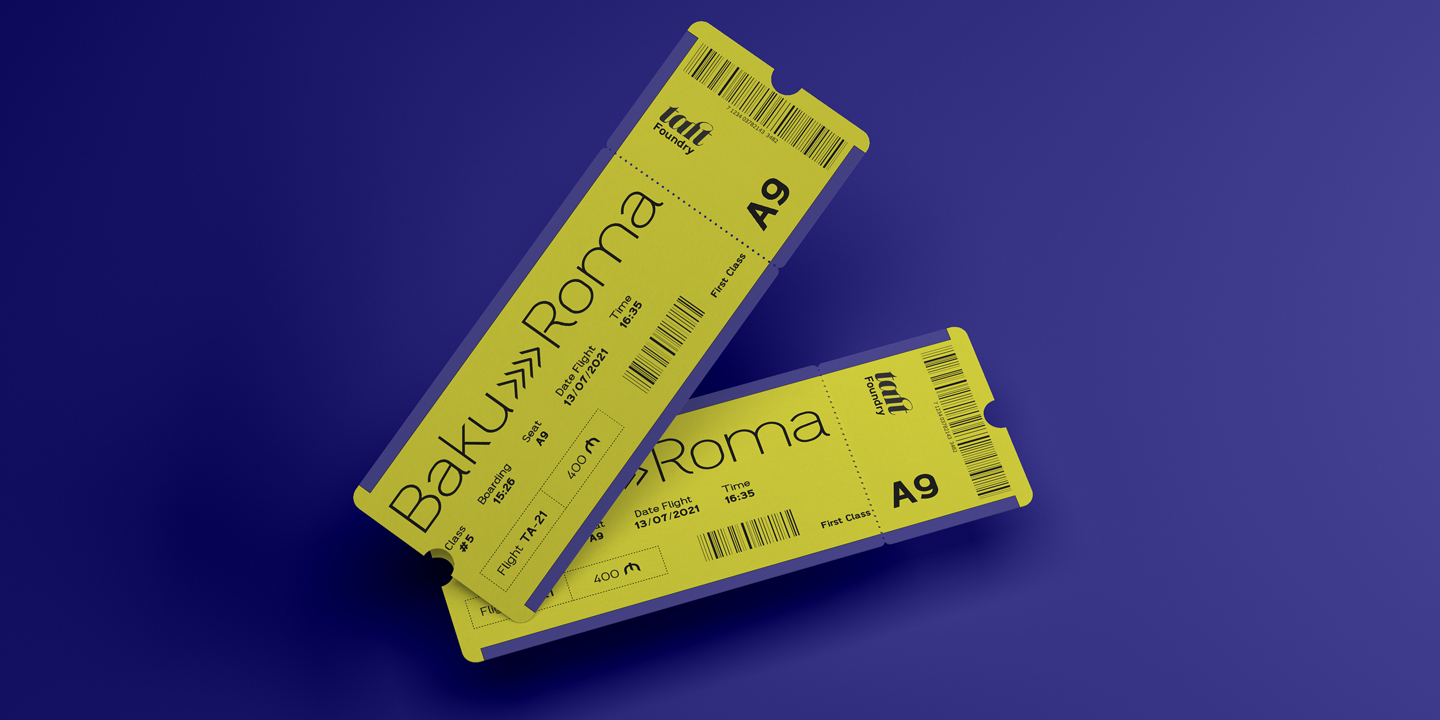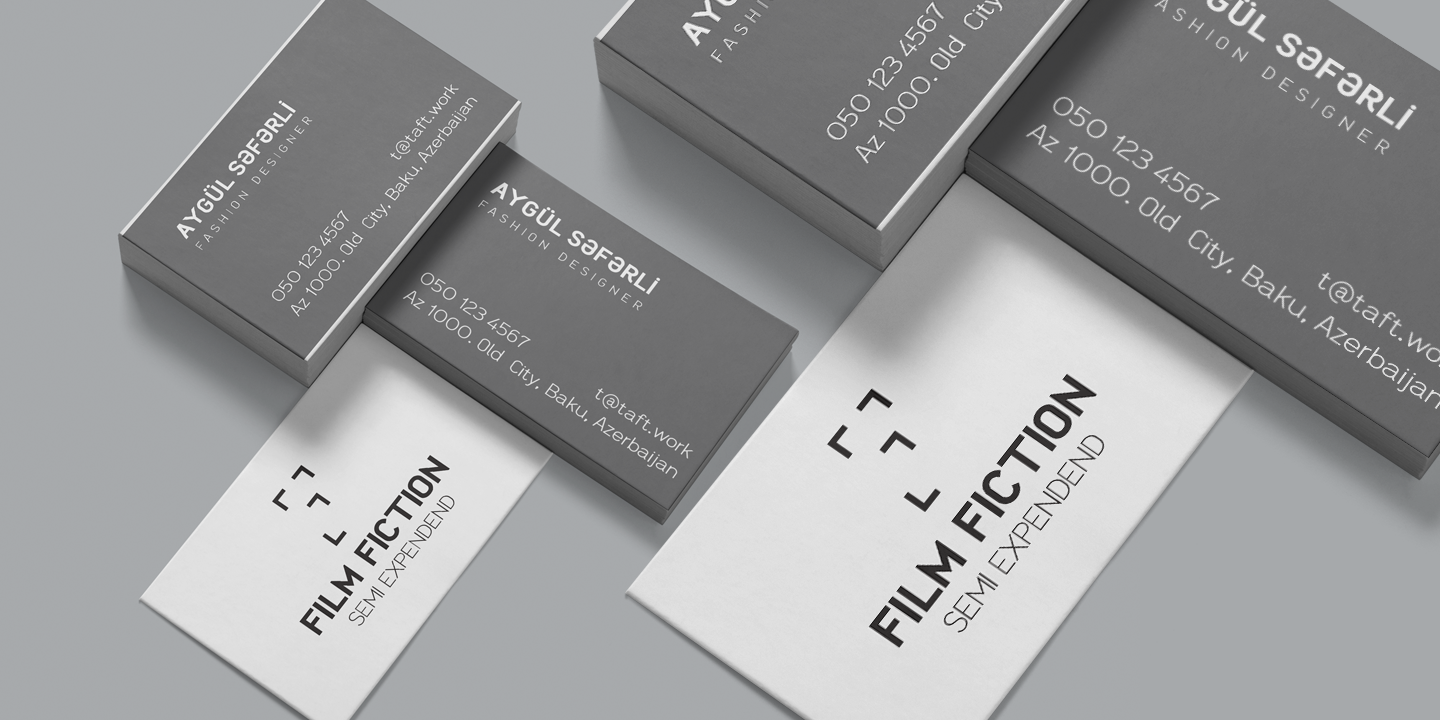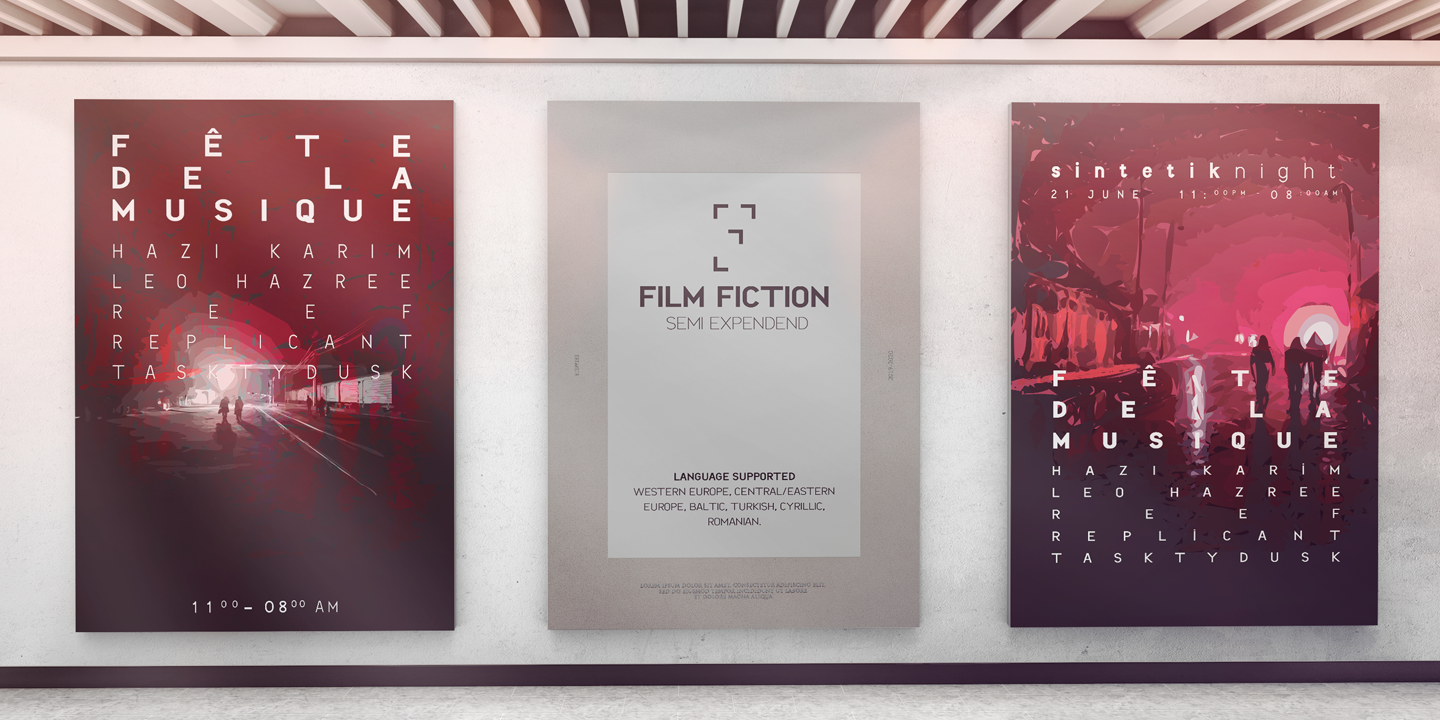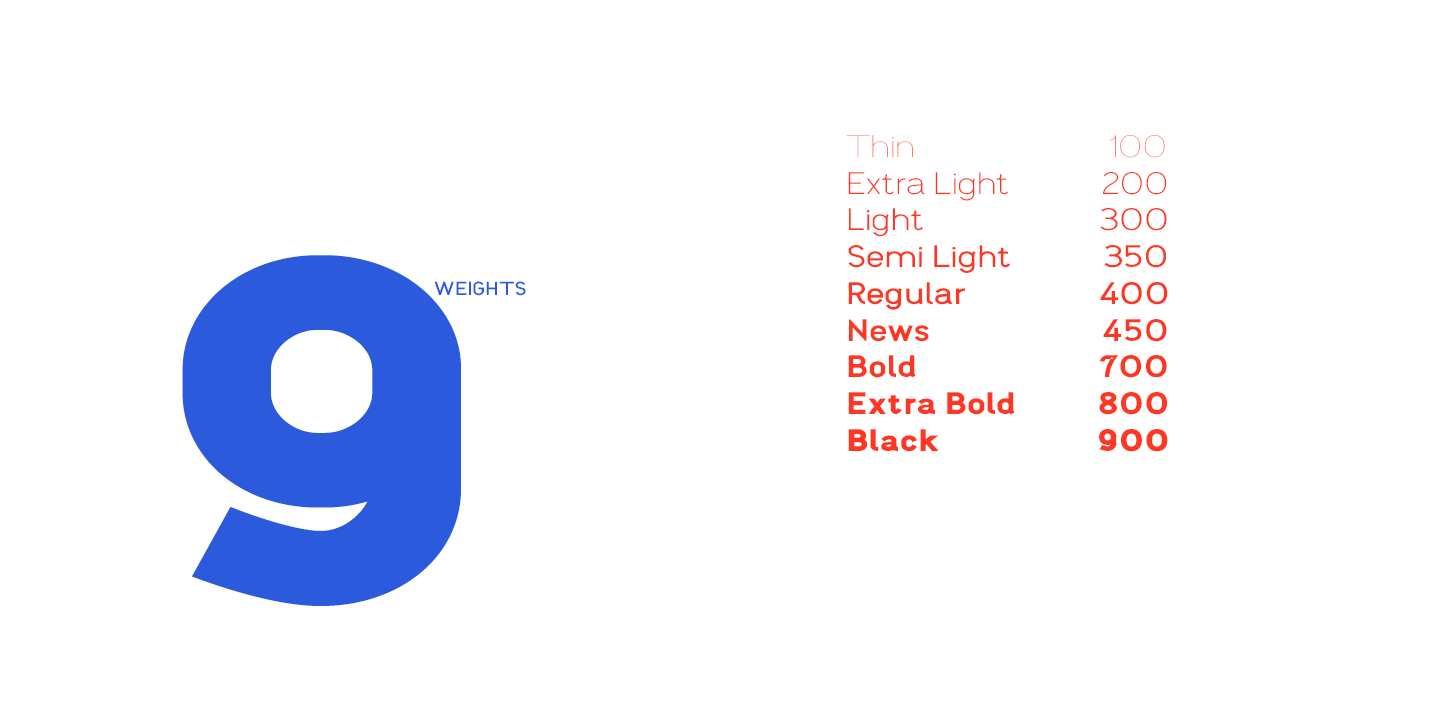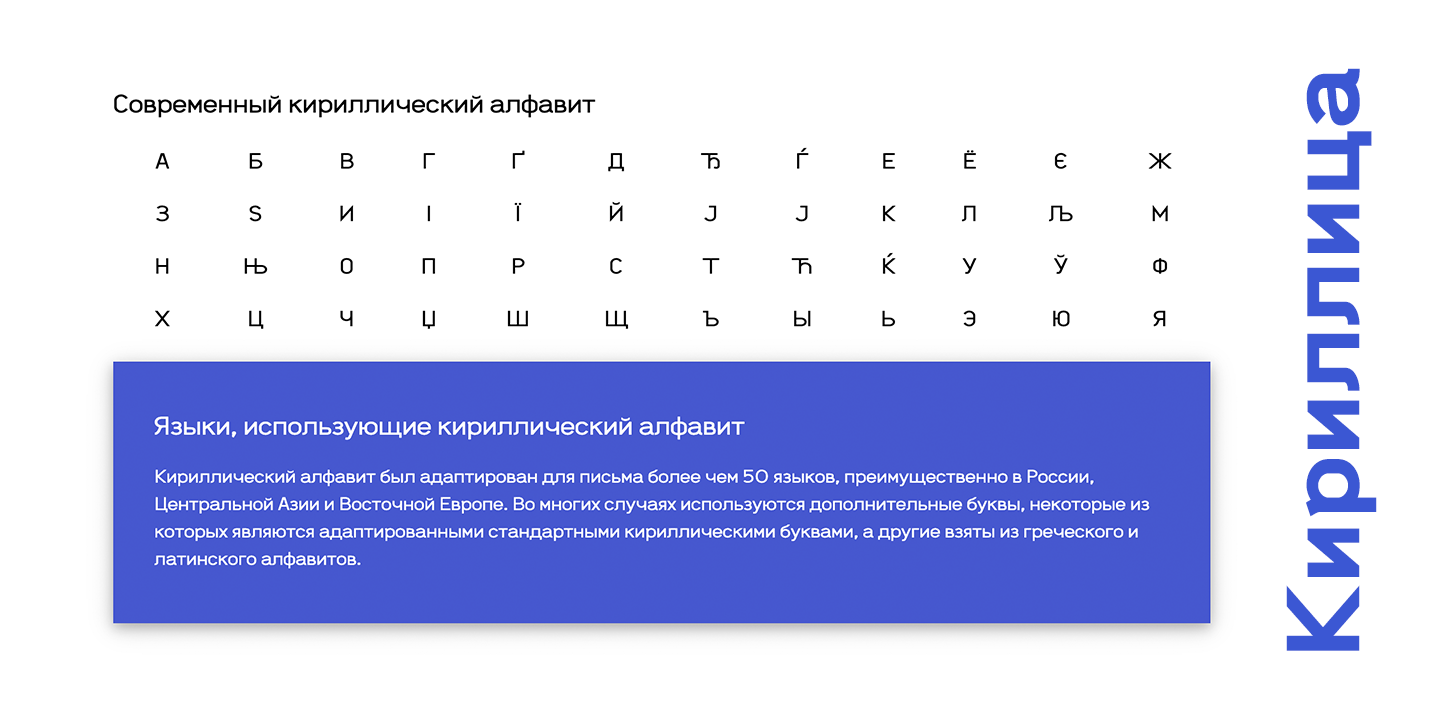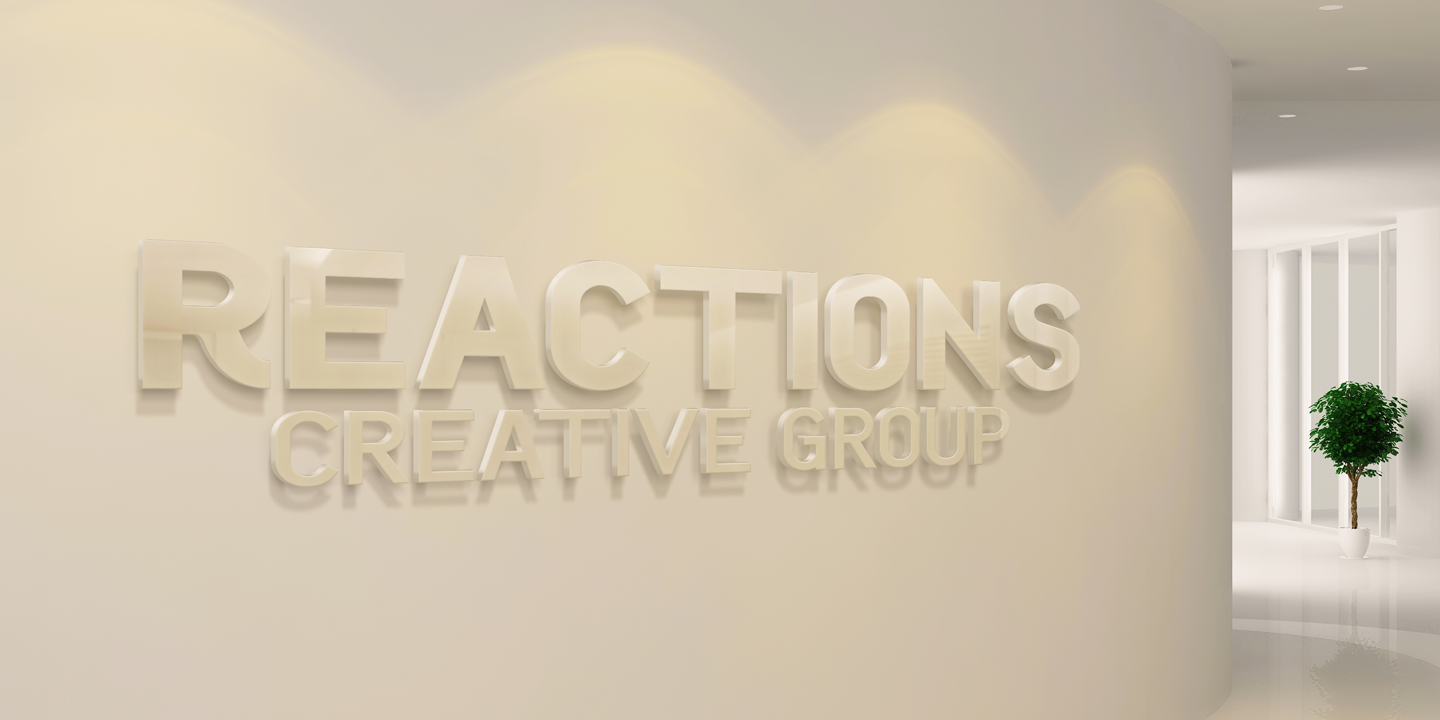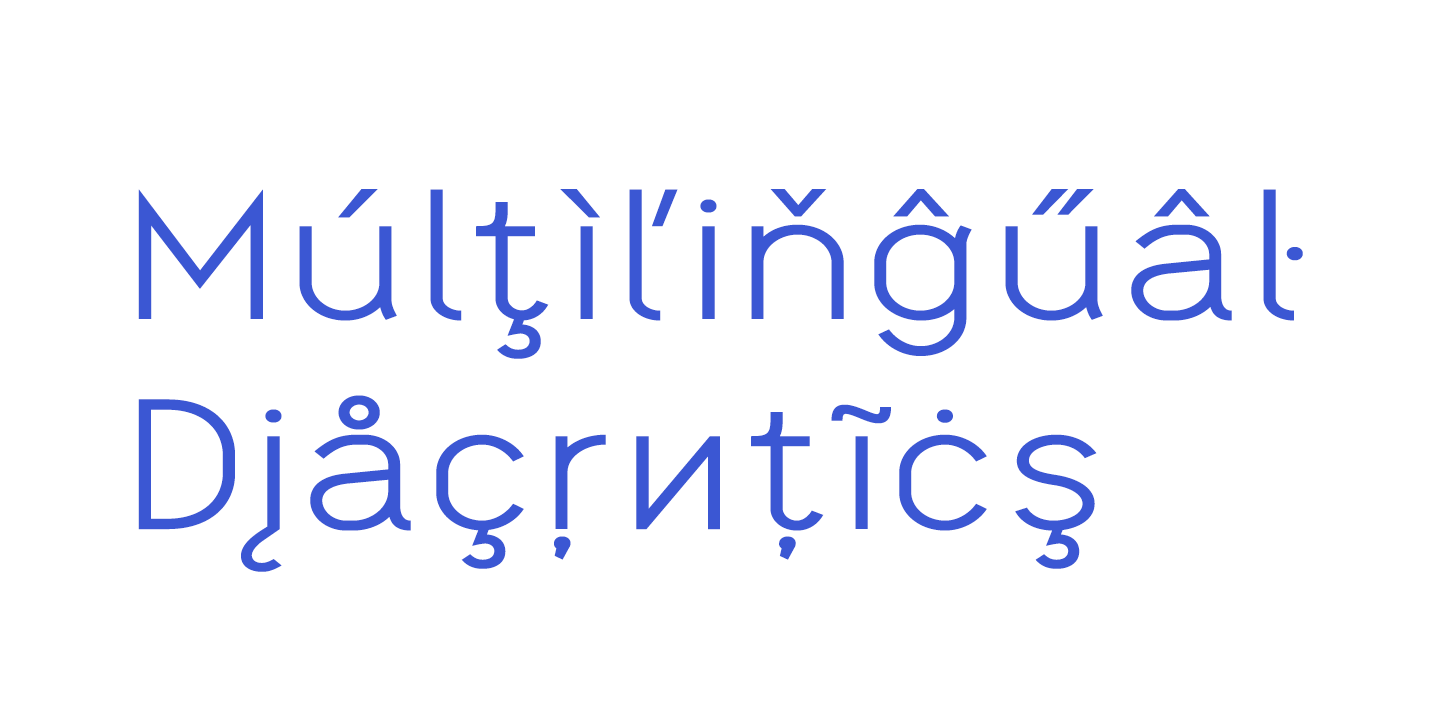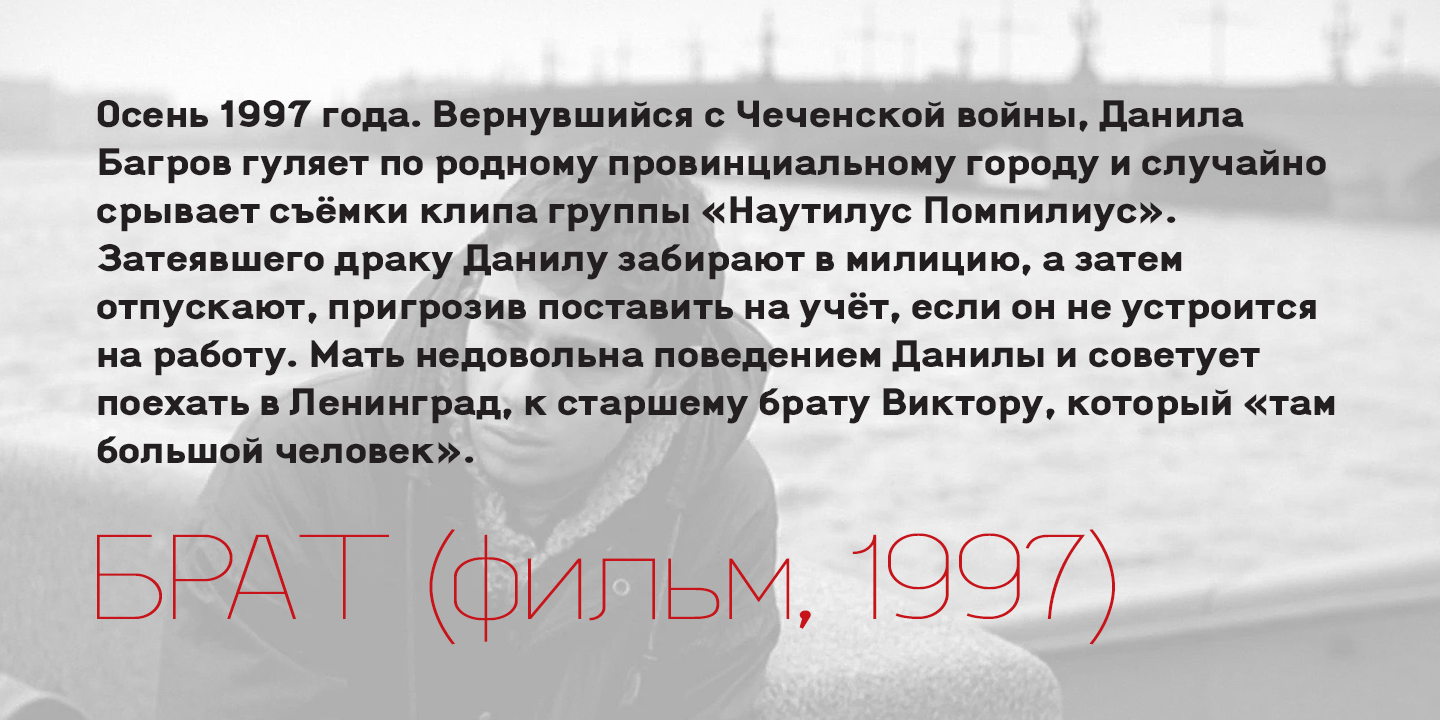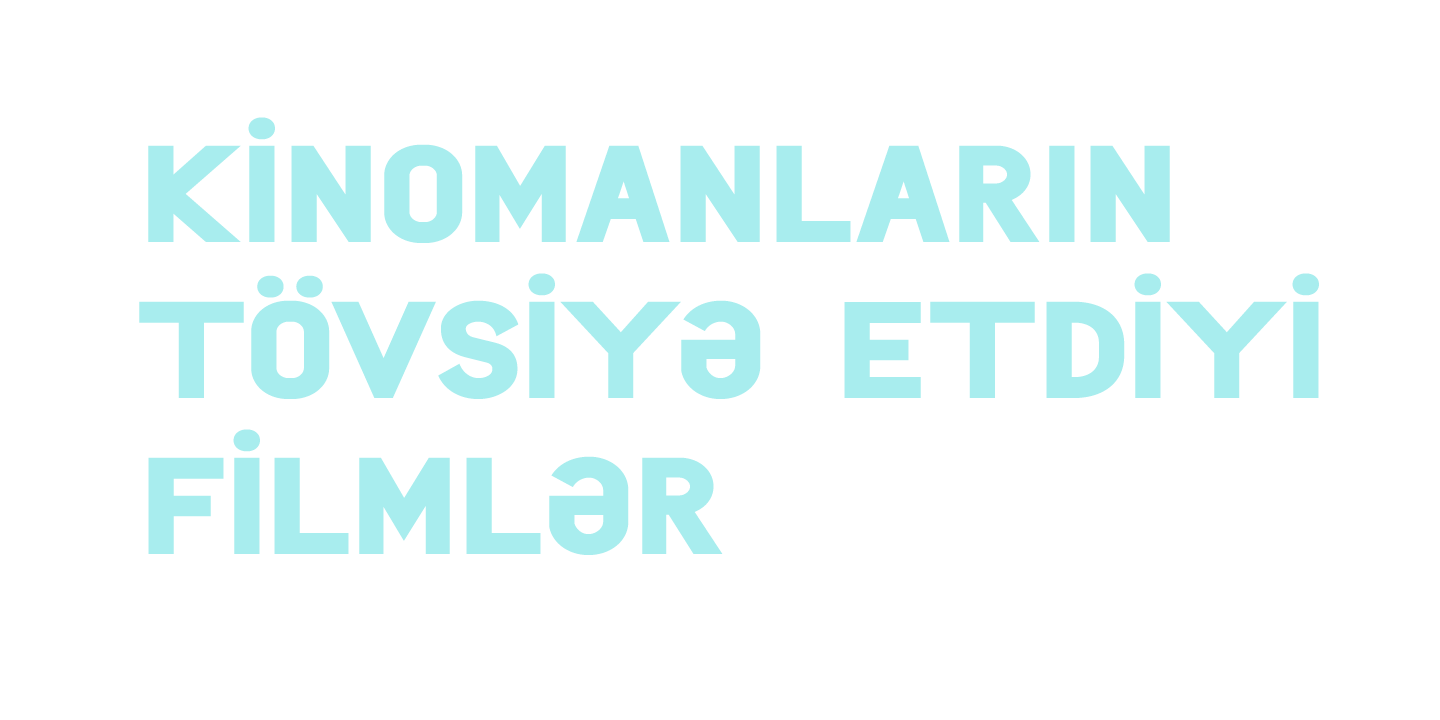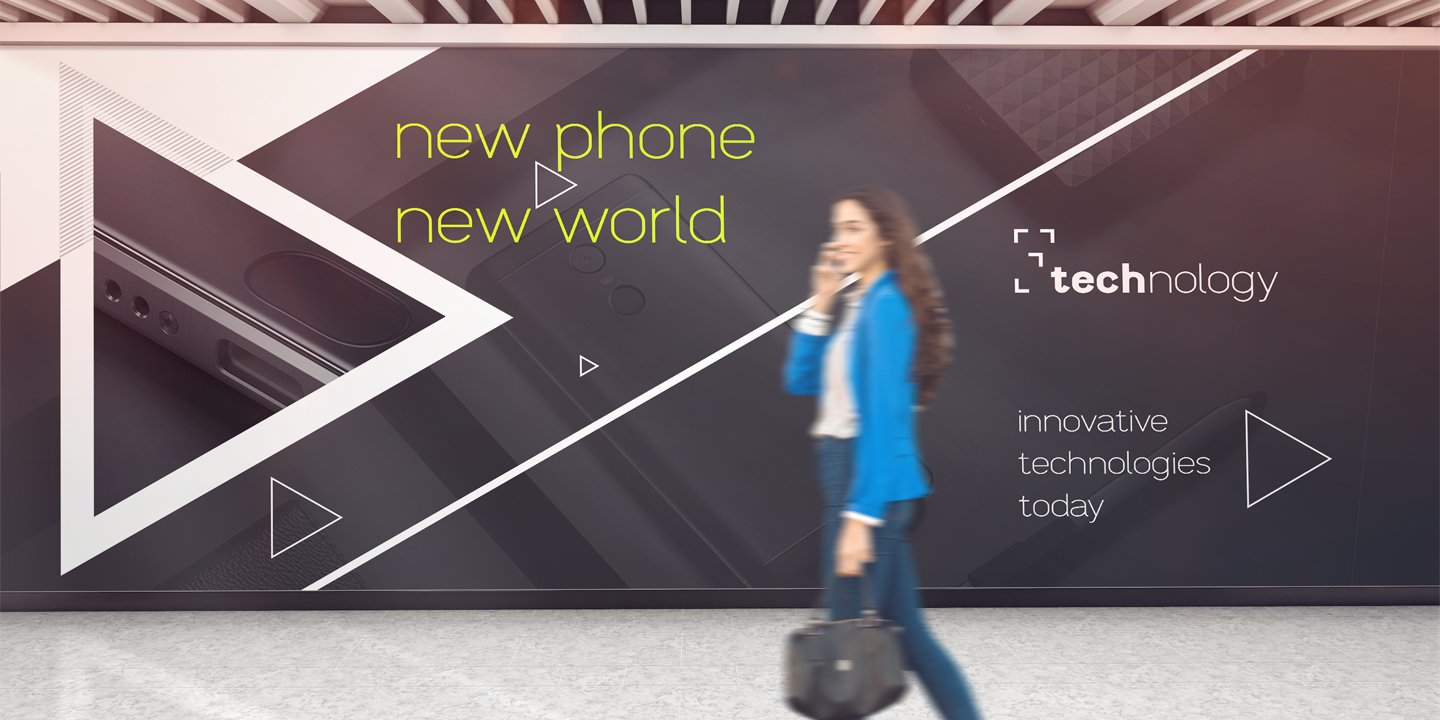
Film Fiction Semi Expanded | TYPEFACE
Film Fiction Semi Expanded works great for branding, films, magazines, headers, logos, TV, UI, web, badge, packaging, headlines, posters, t-shirt/apparel etc. Film Fiction Semi Expanded offers you options to explore a whole host of applications and gives a real modern feel to any project. Film Fiction Semi Expanded comes in 9 styles with 745 glyphs each. OT Features: aalt, calt, dnom, frac, kern, liga, numr, ordn, salt, sinf, ss01, ss02, ss03, ss04, subs, sups and more. Language support for Western Europe, Central/Eastern Europe, Baltic, Turkish, Cyrillic, Romanian.